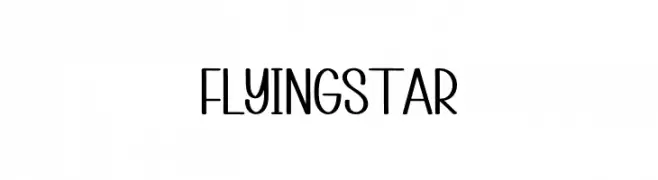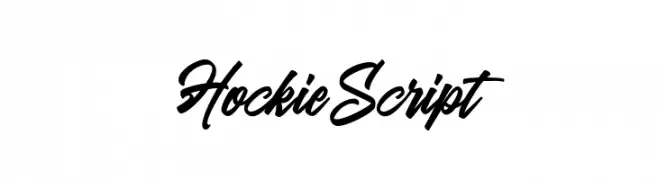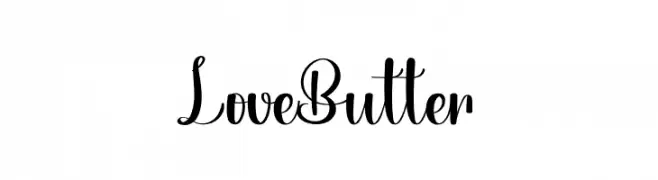
( Fonts by Ilham Prasetya )
An elegant, flowing script font with thin, elongated strokes and graceful curves.
( Fonts by Insan Perkasya )
A playful, handwritten font with a casual and friendly style.
( Fonts by Nirmana Visual )
Elegant cursive font with fluid, connected strokes, ideal for personal and artistic projects.
( Fonts by Inermedia Studio )
A playful and whimsical handwritten font with fluid strokes and expressive characters.
( Fonts by Lunas Type )
An elegant script font with flowing, interconnected letters and a handwritten style.
( Fonts by Scratchones )
A playful, modern handwritten font with rounded characters.
( Fonts by Letterafa Studio )
A playful, casual handwritten font with smooth, flowing lines and a personal touch.
( Fonts by Tebaltipis Studio )
A bold, cursive script font with dynamic and fluid letterforms.
( Fonts by PiPi Creative )
A playful and elegant script font with flowing, connected letterforms.
( Fonts by Scratchones )
A playful, handwritten font with dynamic strokes and a casual feel.